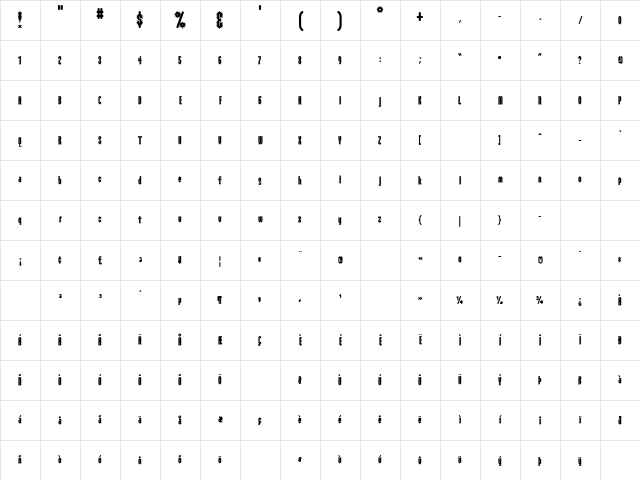
ModulaRibbed Regular
ModulaRibbed Family
ModulaRibbed Regular
Design Context for ModulaRibbed
ModulaRibbed is a composed and adaptable typeface that performs quietly and consistently across a wide range of design contexts.